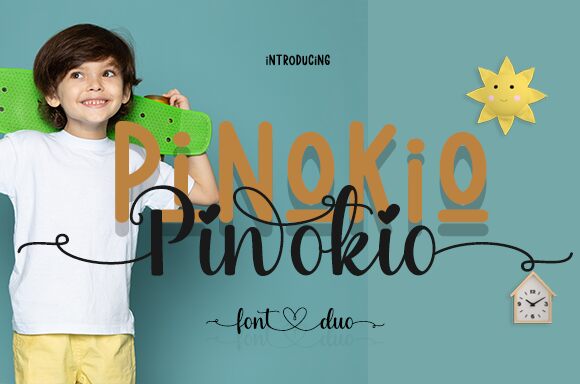
Pinokia Display, designed by Danar Nugroho, is a captivating handwritten font that exudes elegance and playfulness.
With its semi-light weight and condensed width, this font is perfect for creating eye-catching headlines, logo designs, and branding materials. Whether you're working on a fashion magazine layout or want to add a personal touch to your social media posts, Pinokia Display will bring a unique charm to your projects. Its enchanting curves and distinct characters will captivate your audience and leave a lasting impression.
Let Pinokia Display be the signature style that sets your designs apart from the rest.